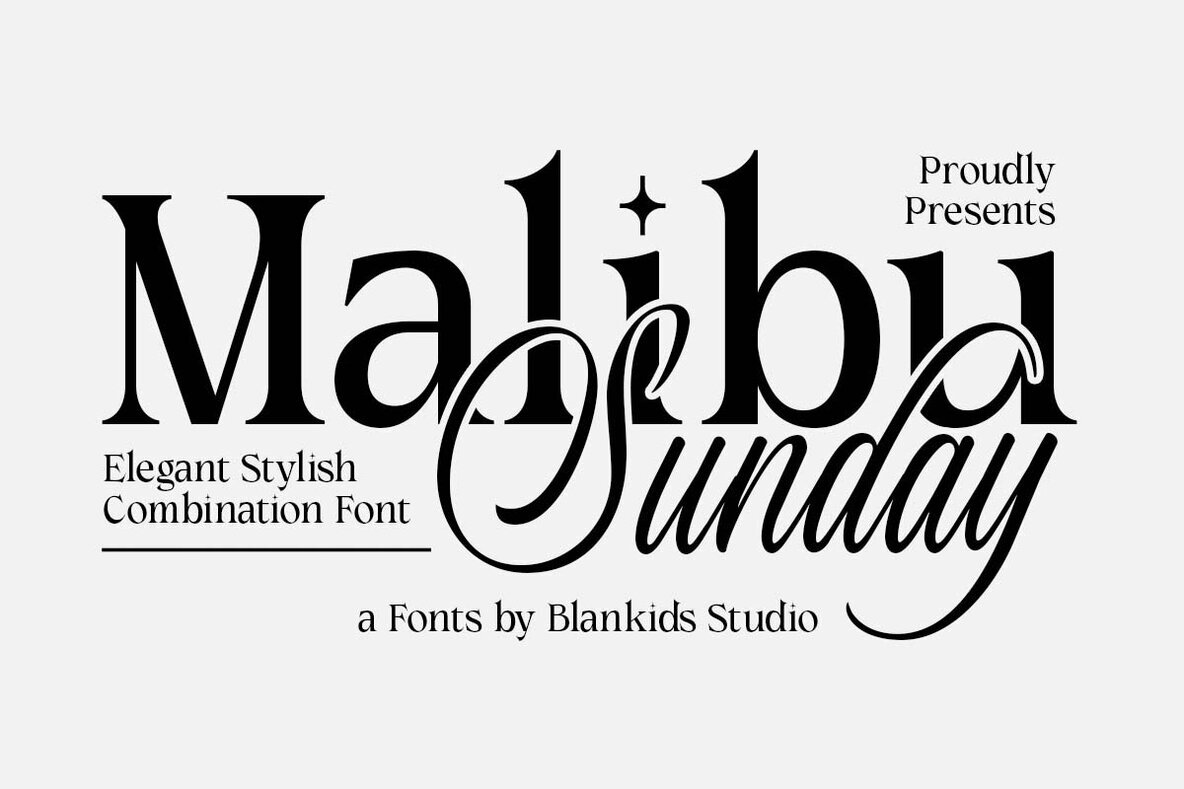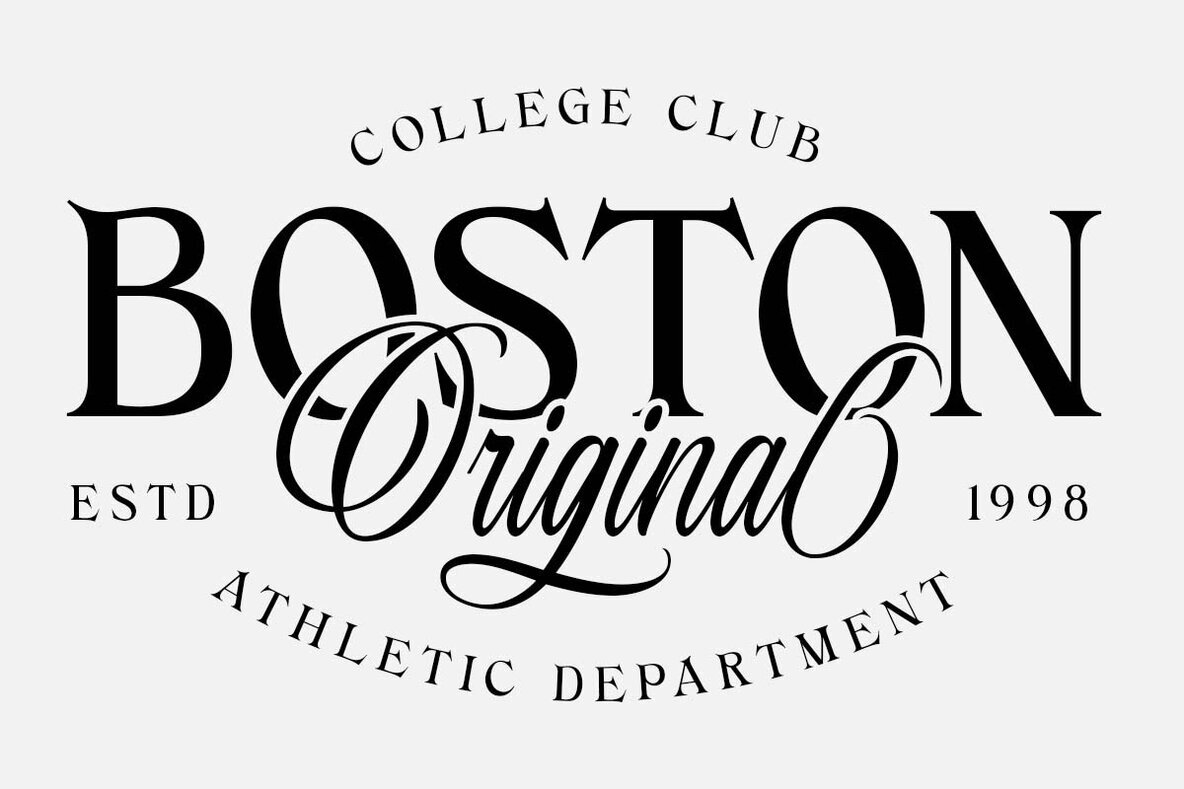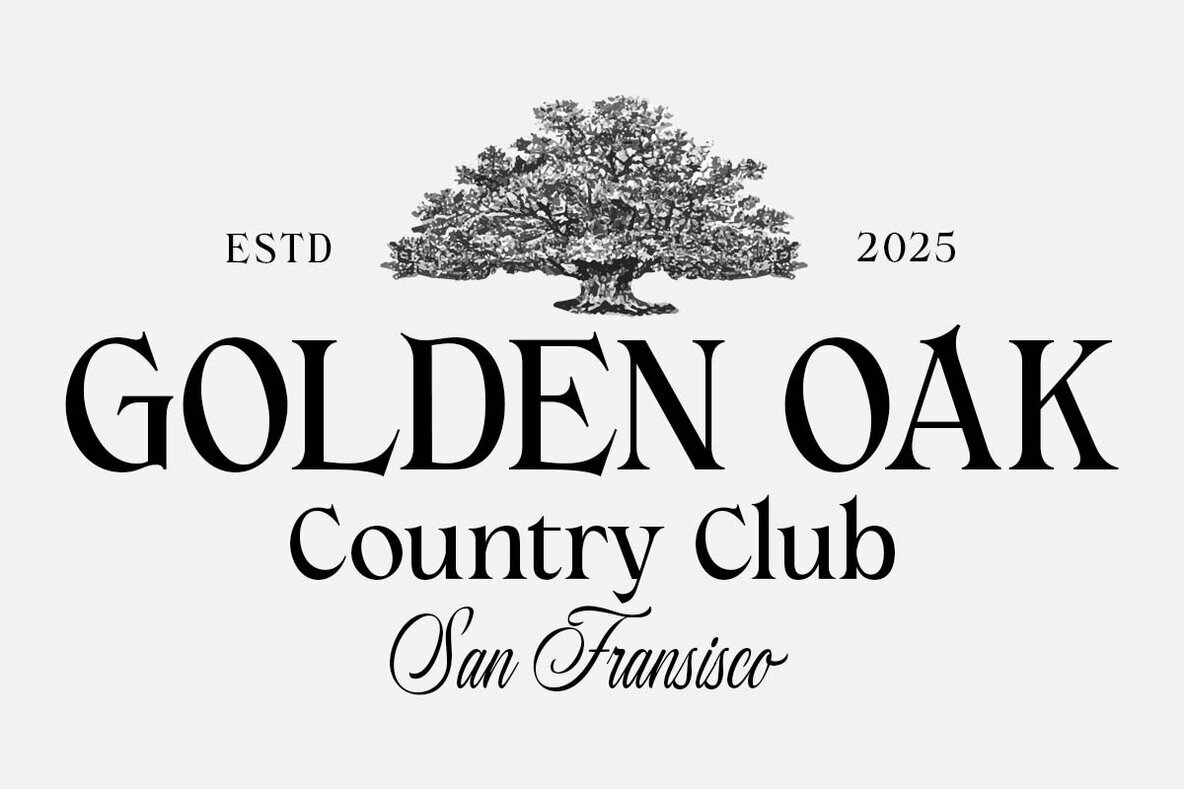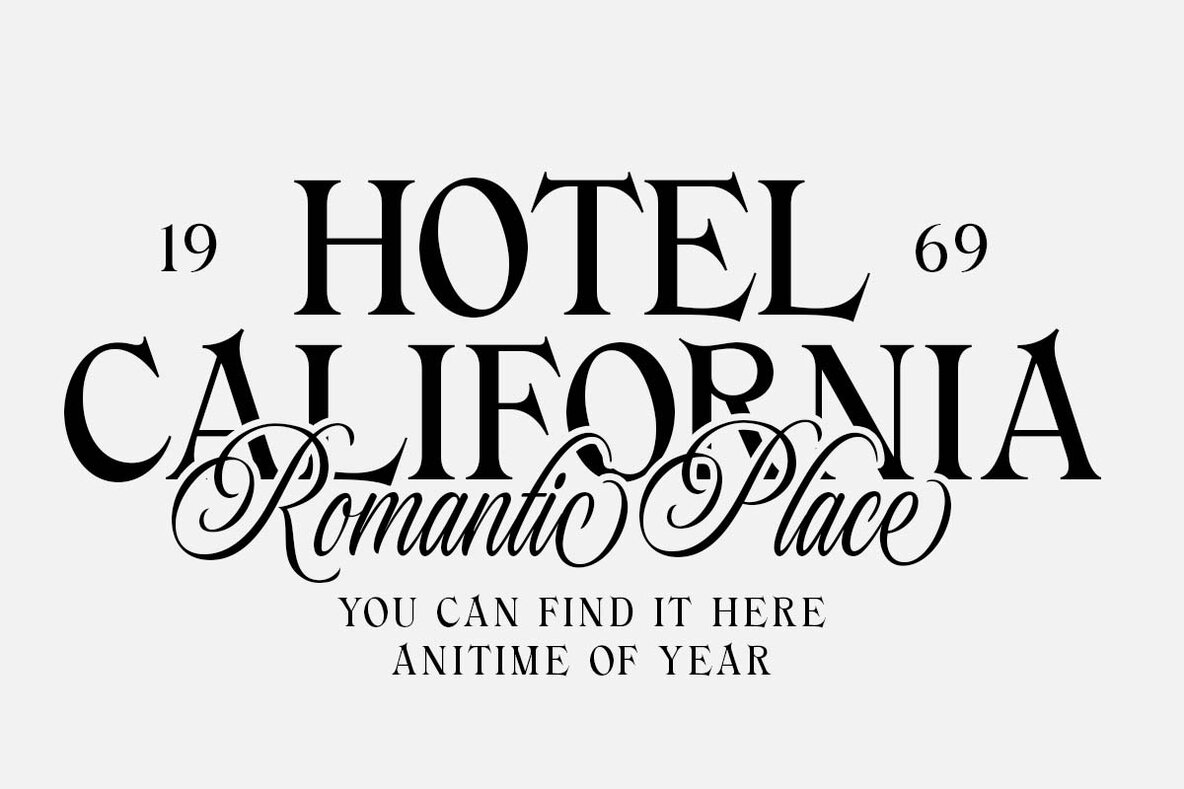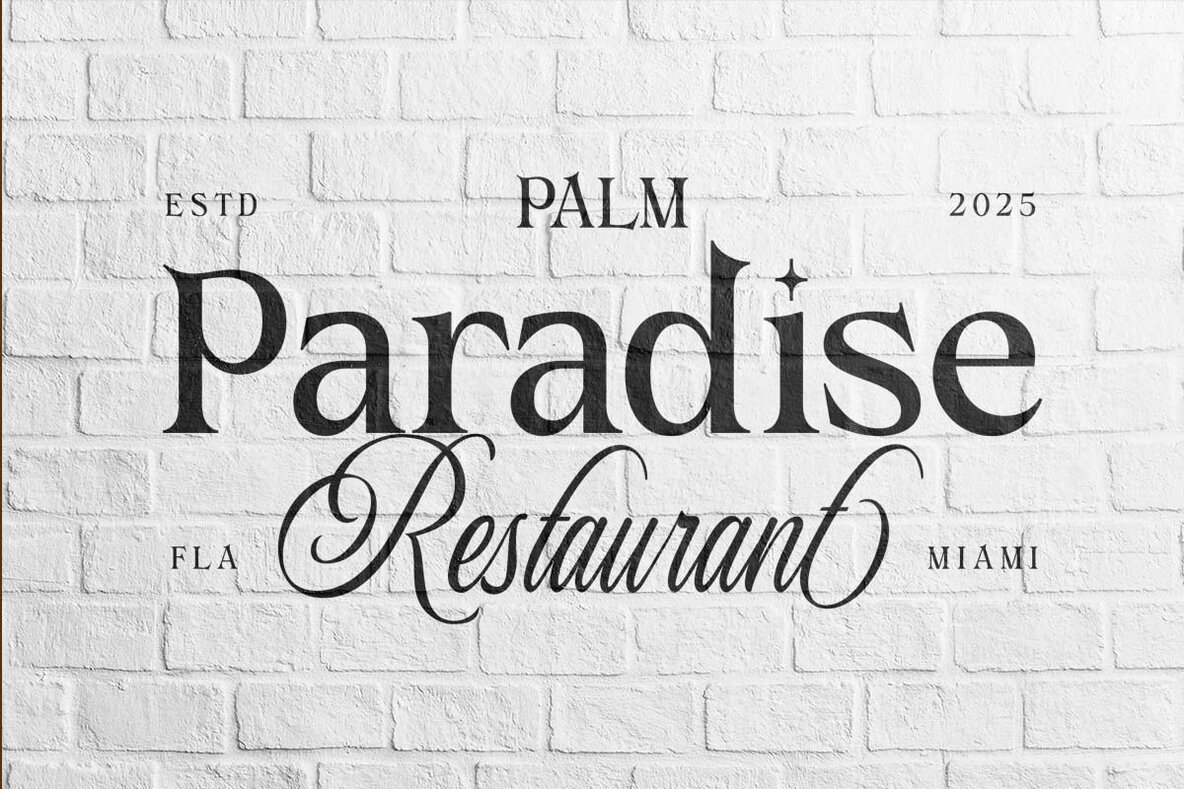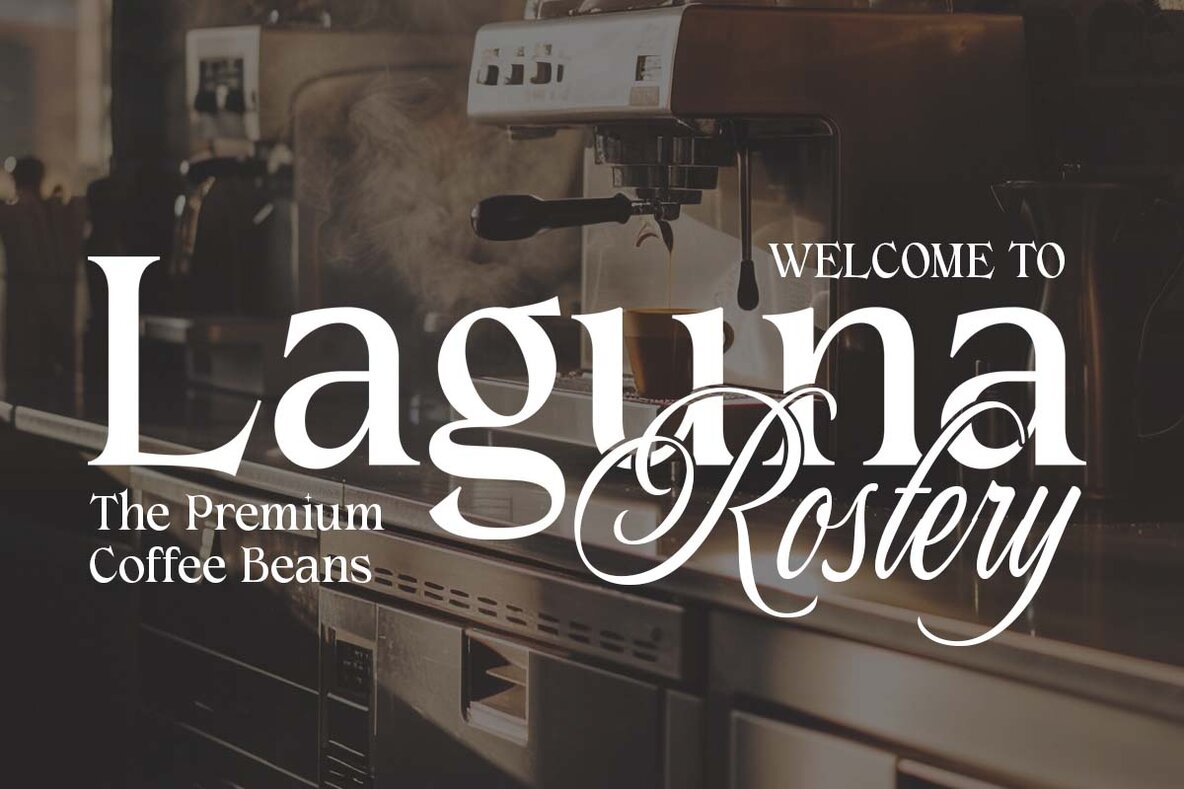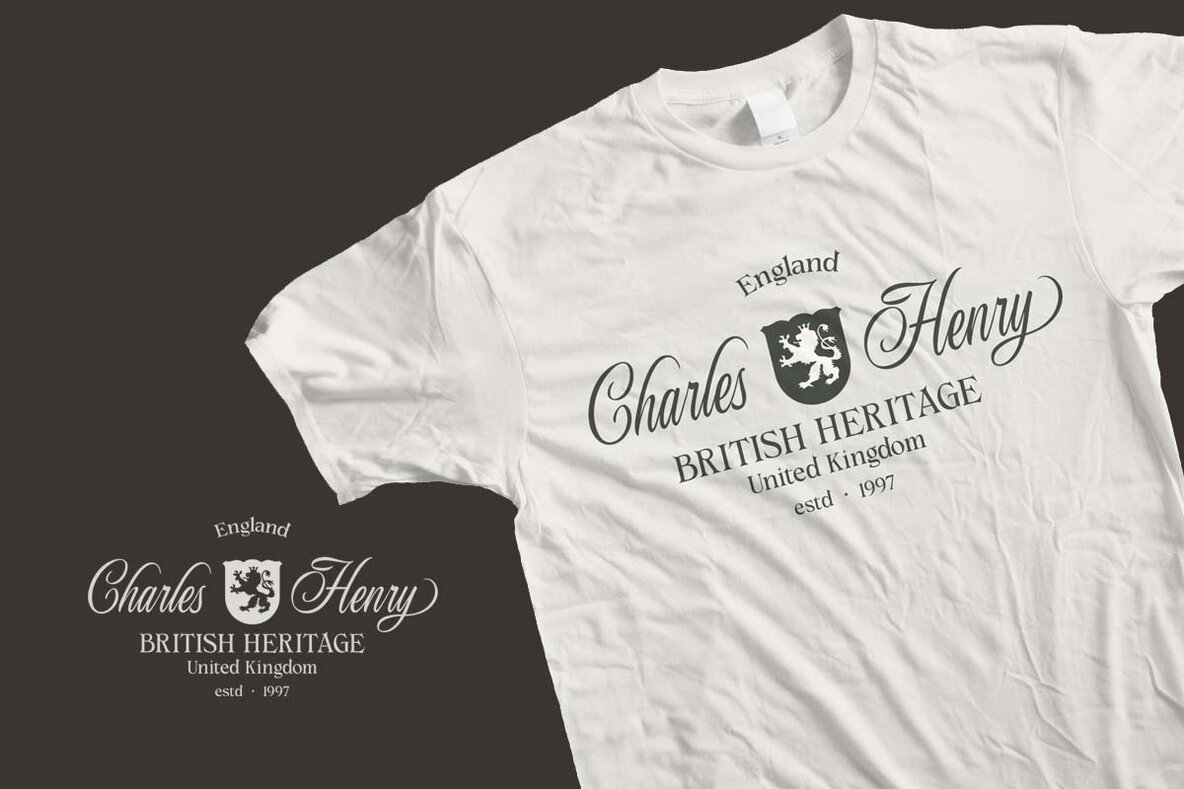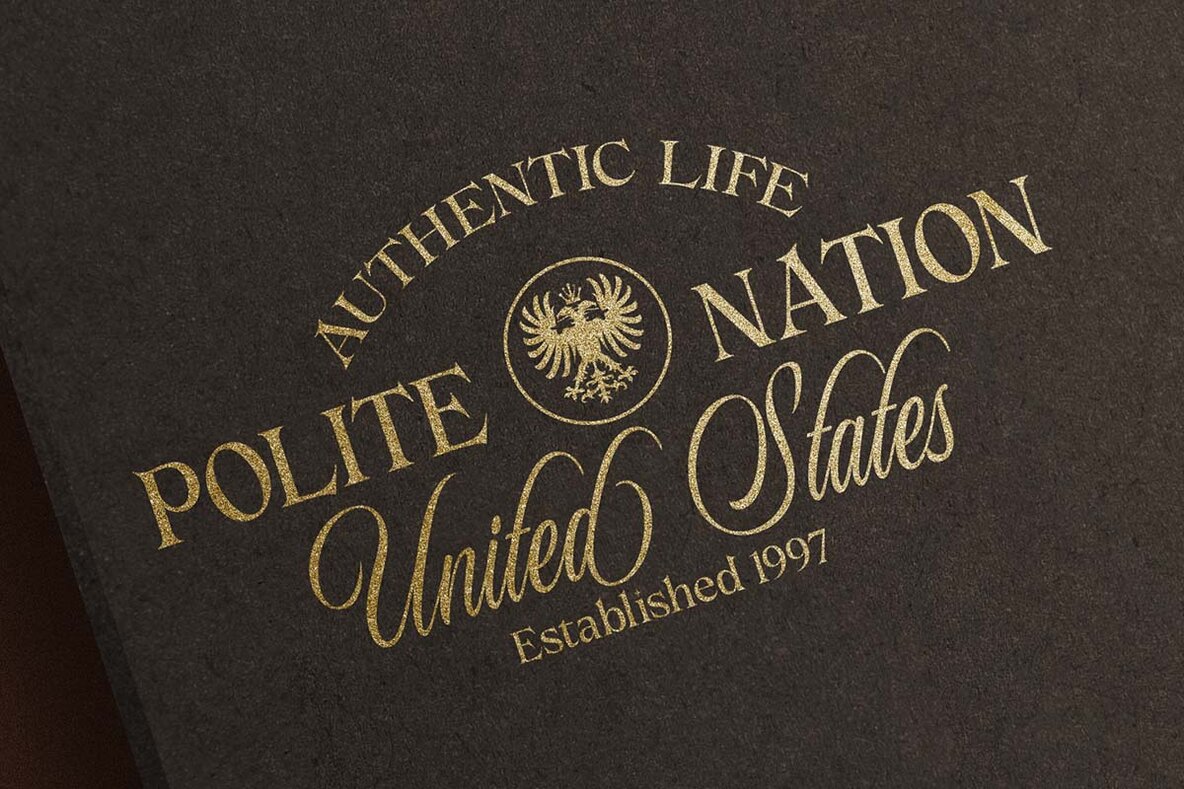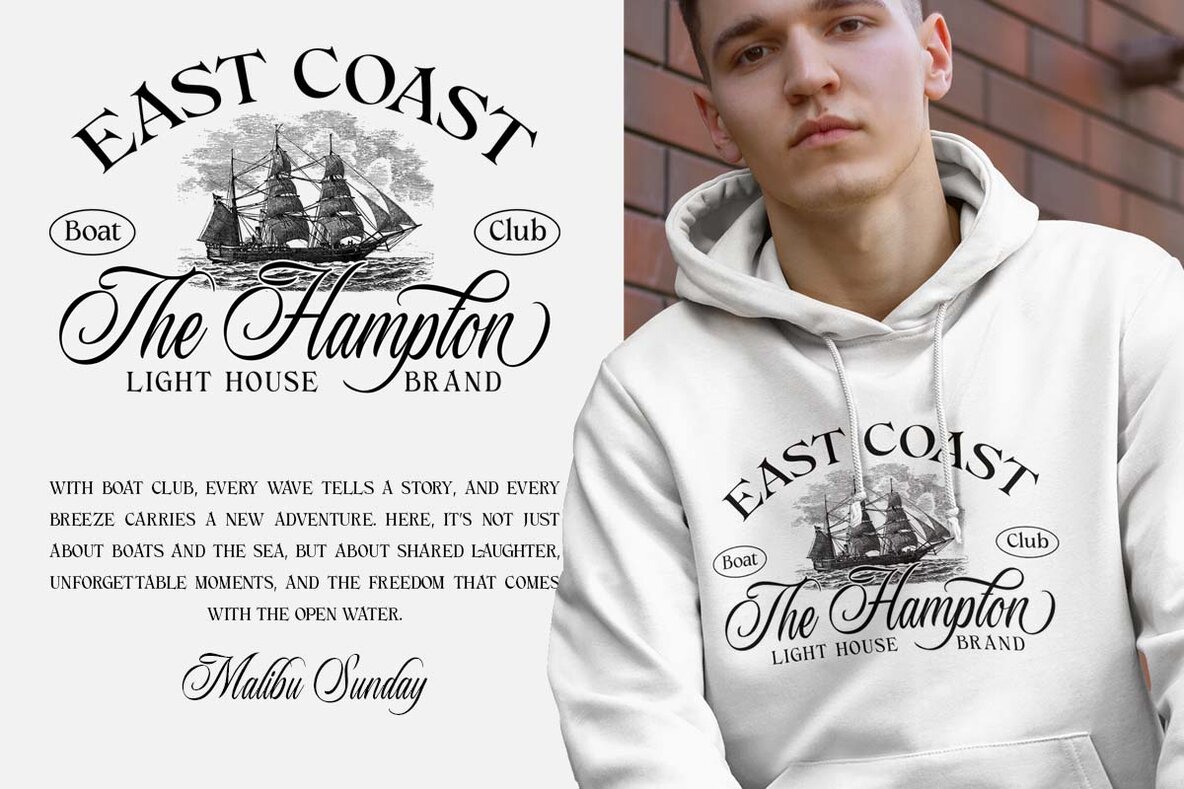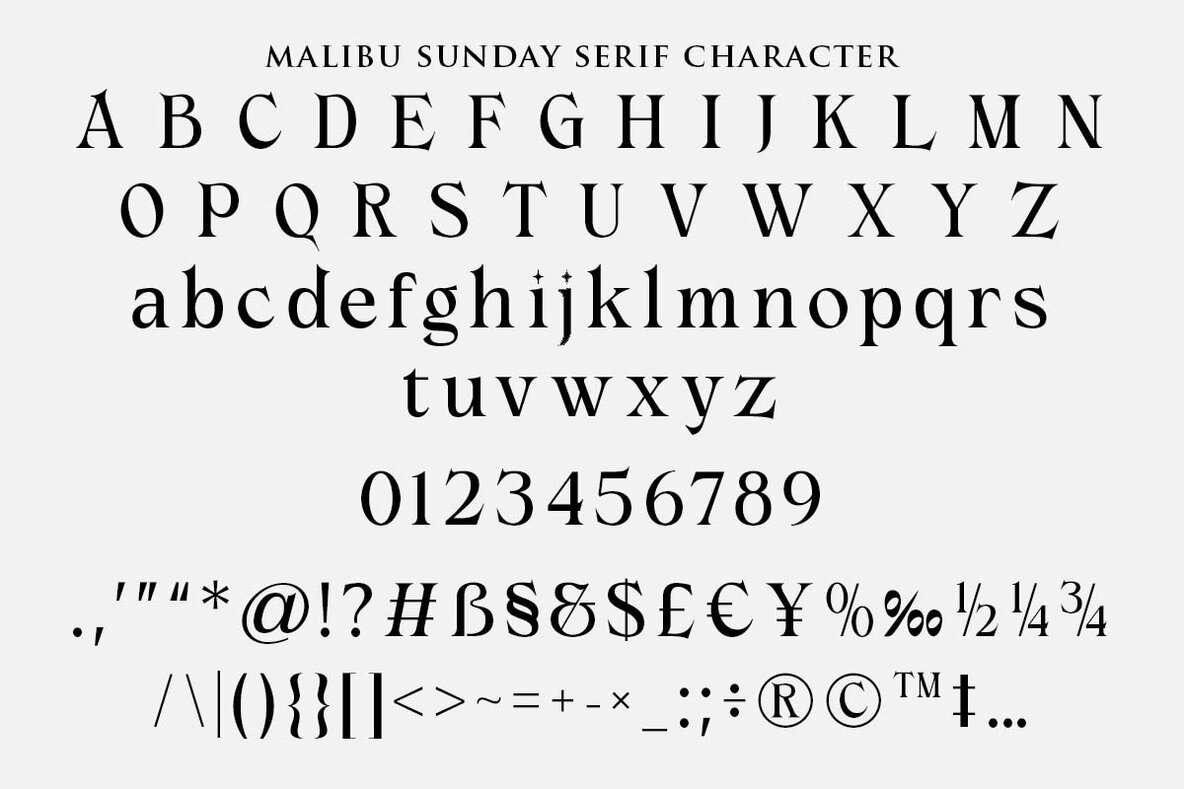
Malibu Sunday Font
Malibu Sunday Script
Malibu Sunday Serif
The Malibu Sunday font, crafted by Blankids Studio, embodies elegance through a unique blend of serif and script styles. This stylish combination is designed to enhance your professional branding projects, whether it be logotypes, watermarks, posters, or product packaging. Each letter in Malibu Sunday exudes classical sophistication, offering a refined touch to any design. Features: Explore the previews to spark inspiration and see how Malibu Sunday can elevate your creative projects. Ideal for designers seeking a timeless and graceful typeface.Malibu Sunday: Elegant Font Duo